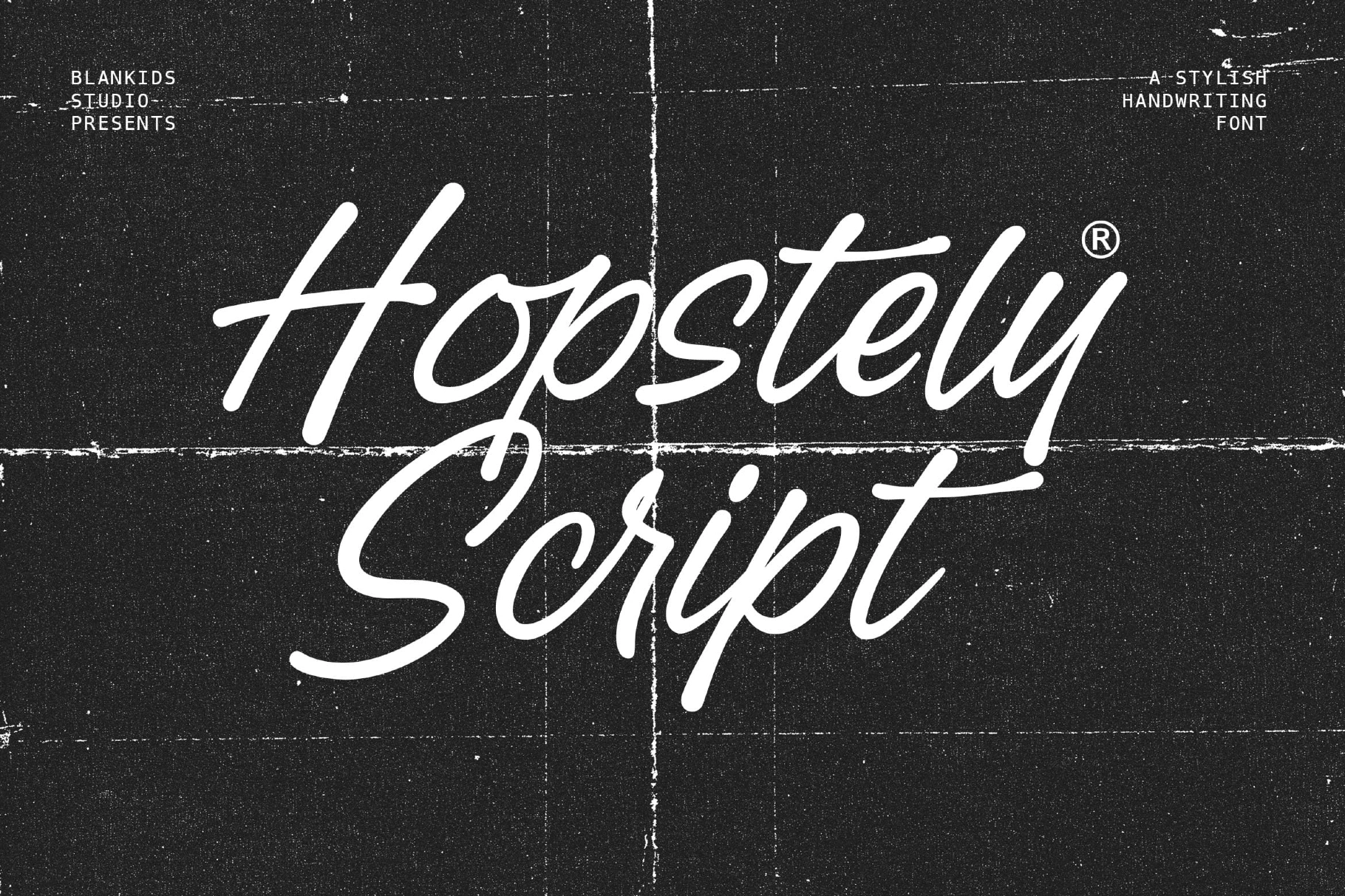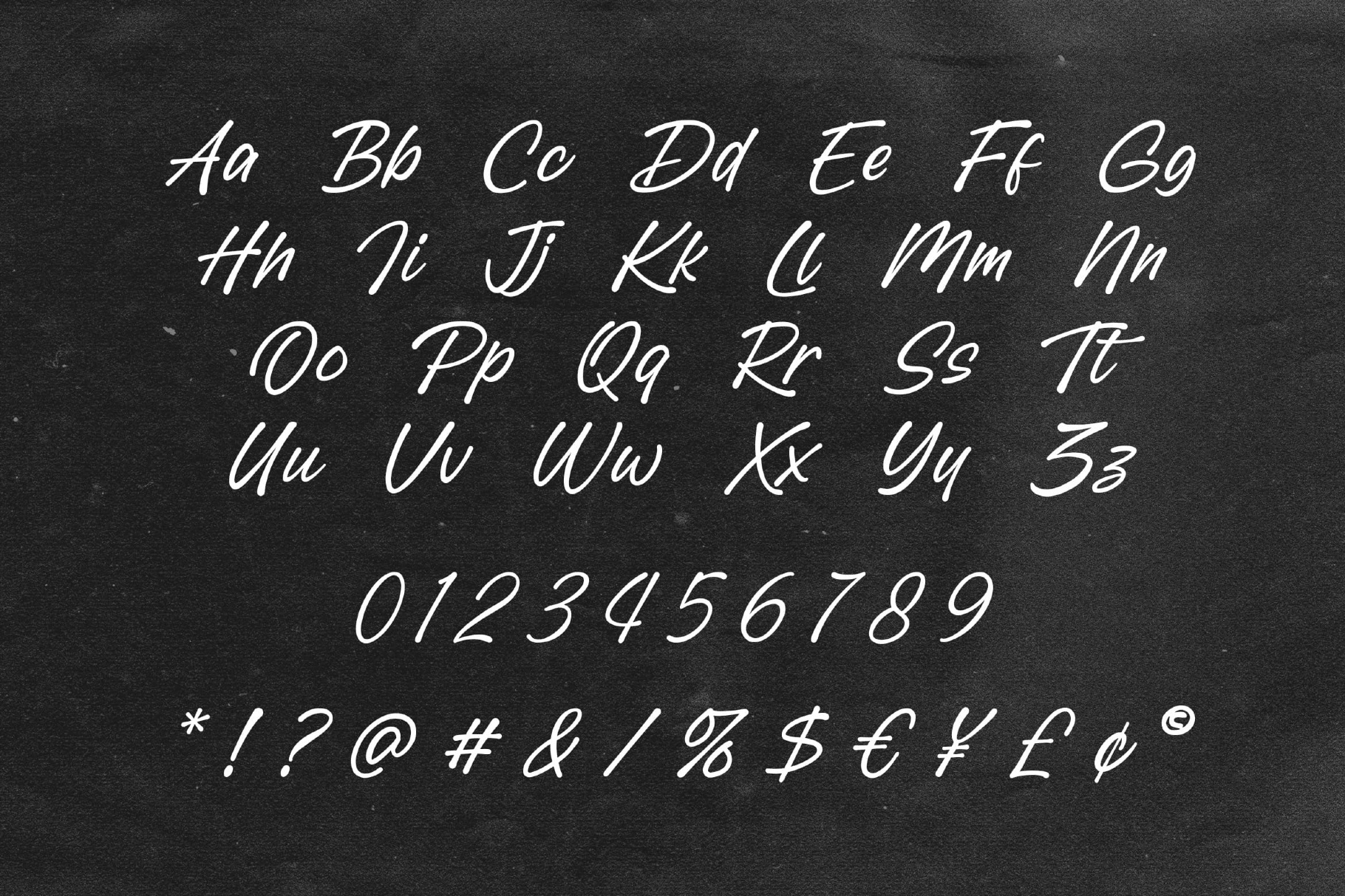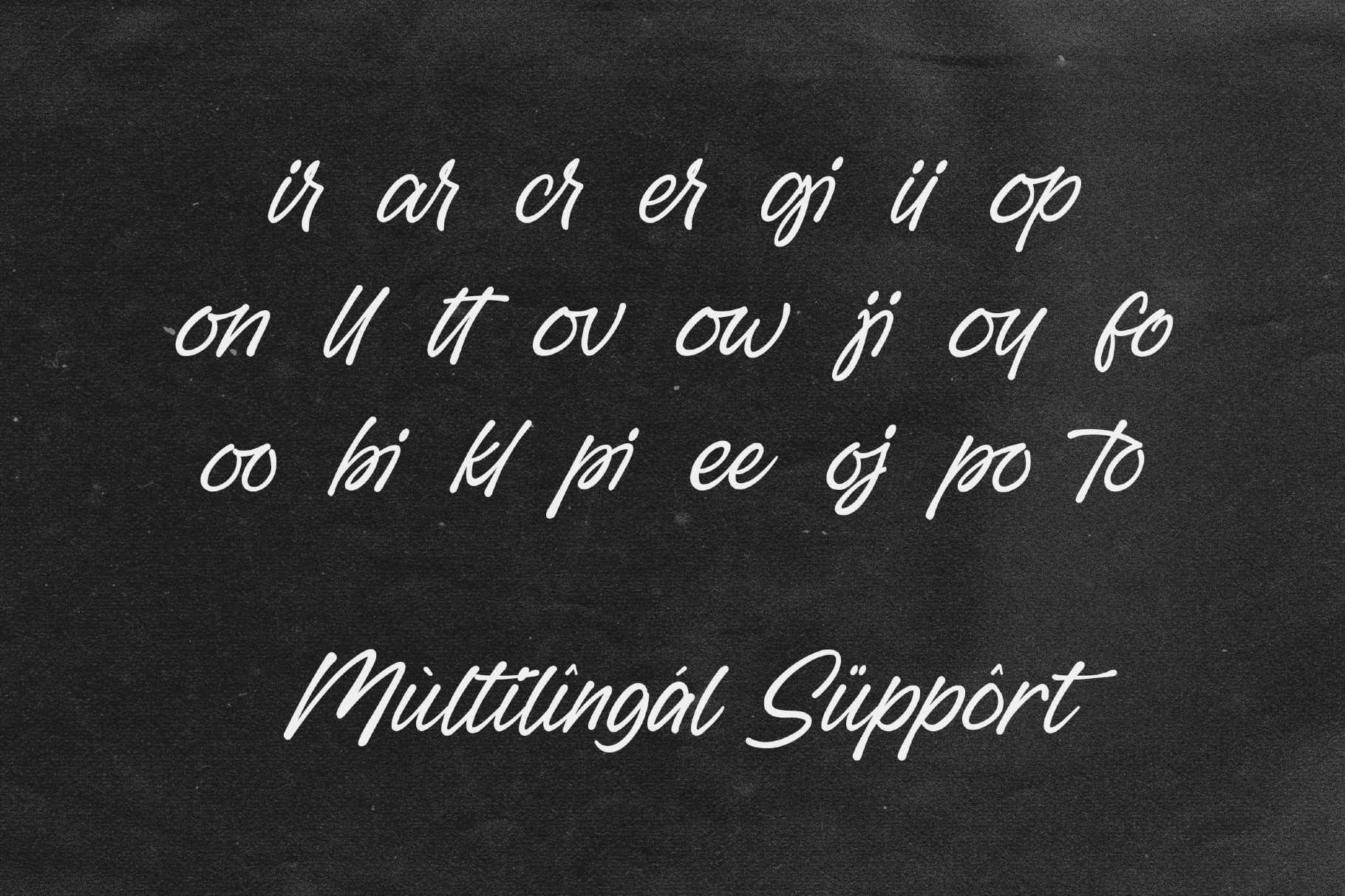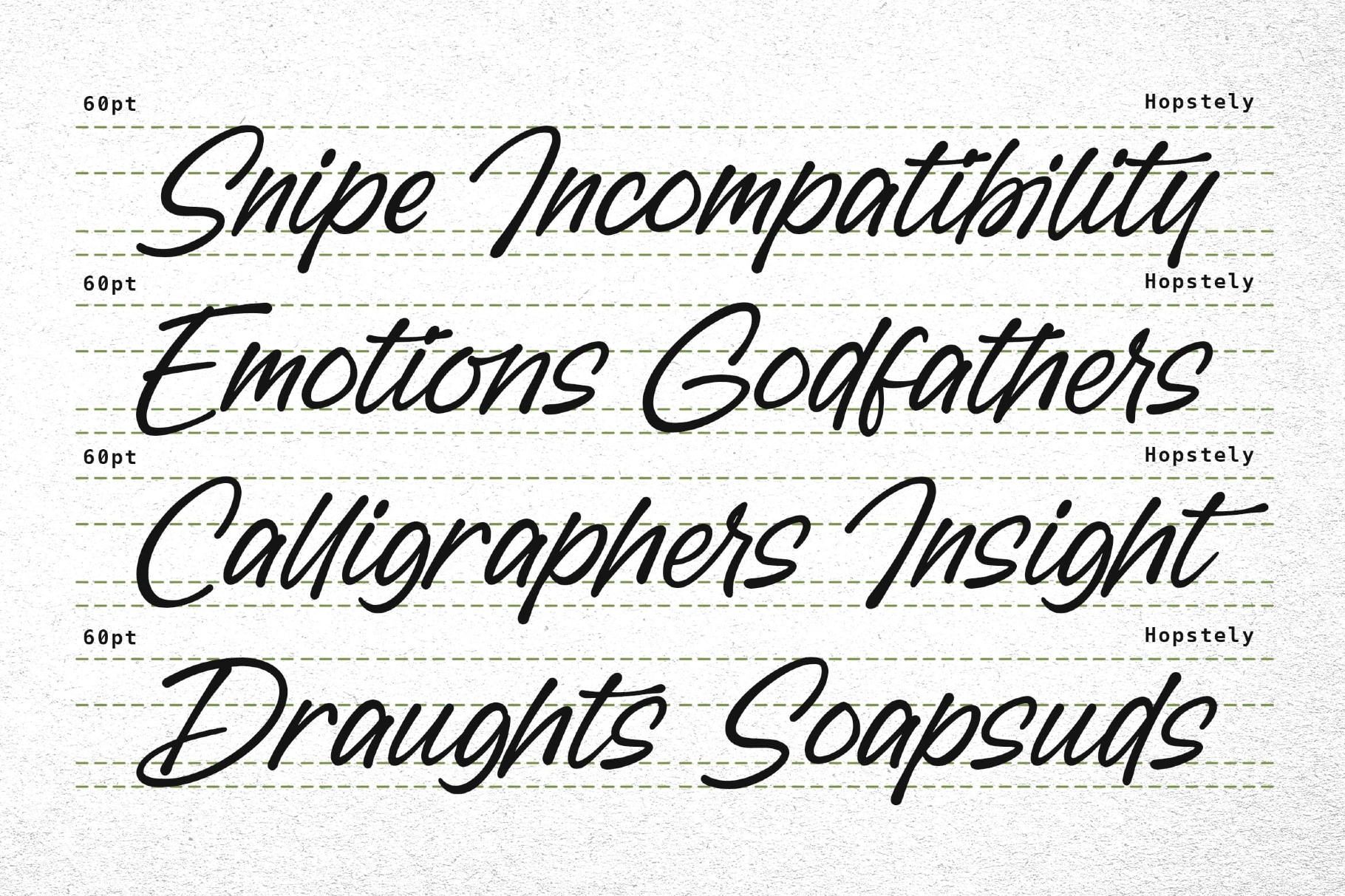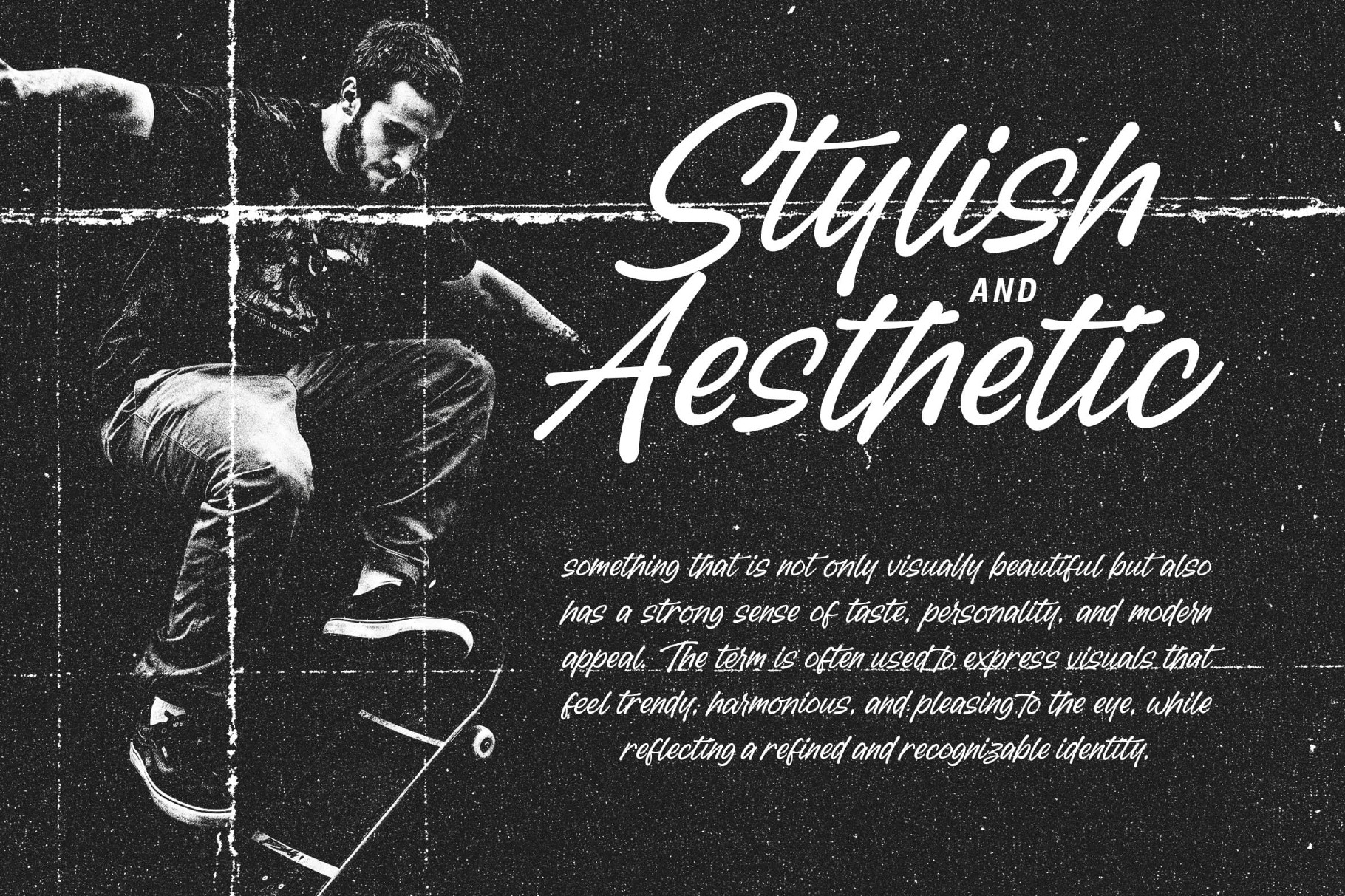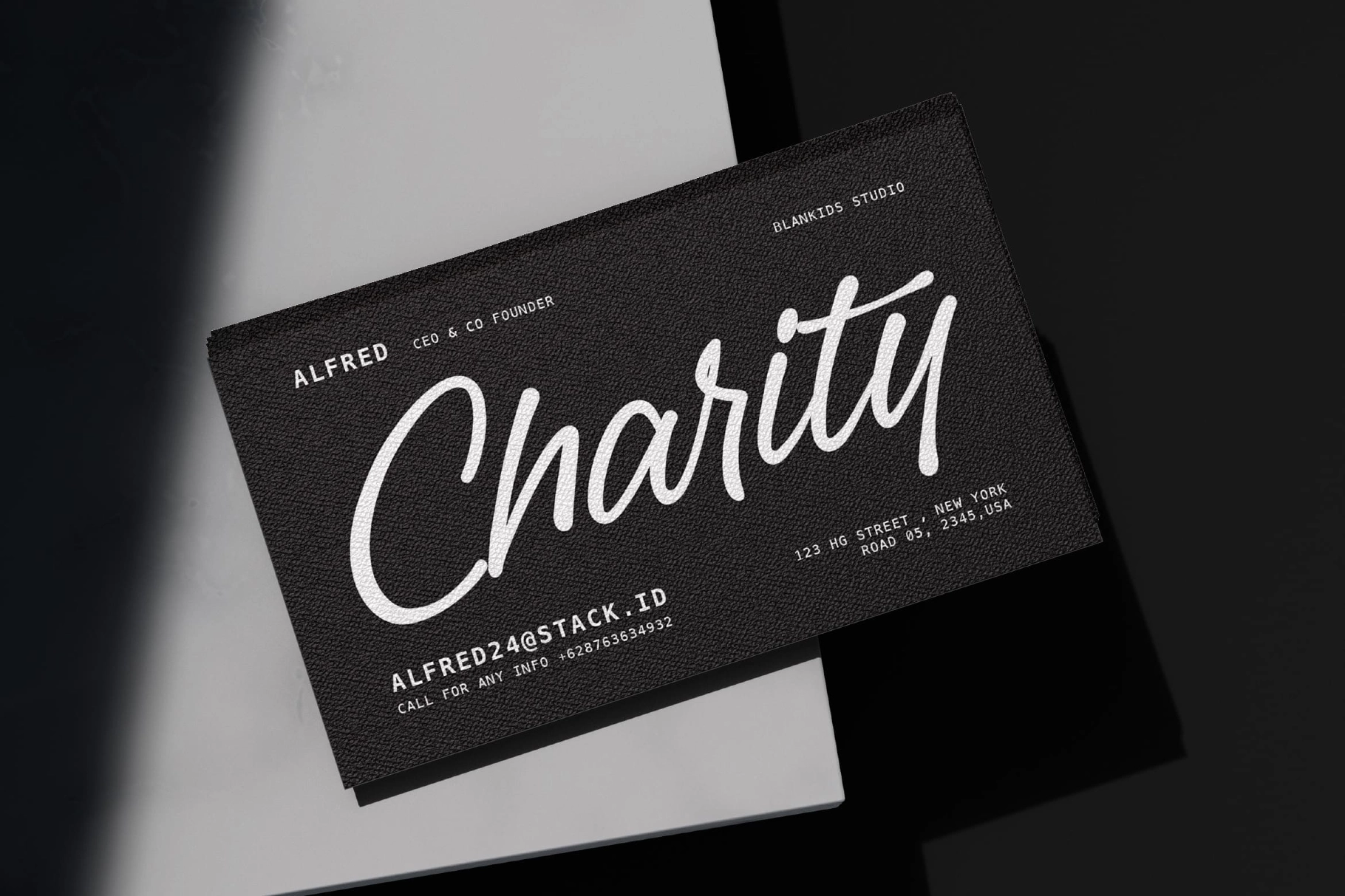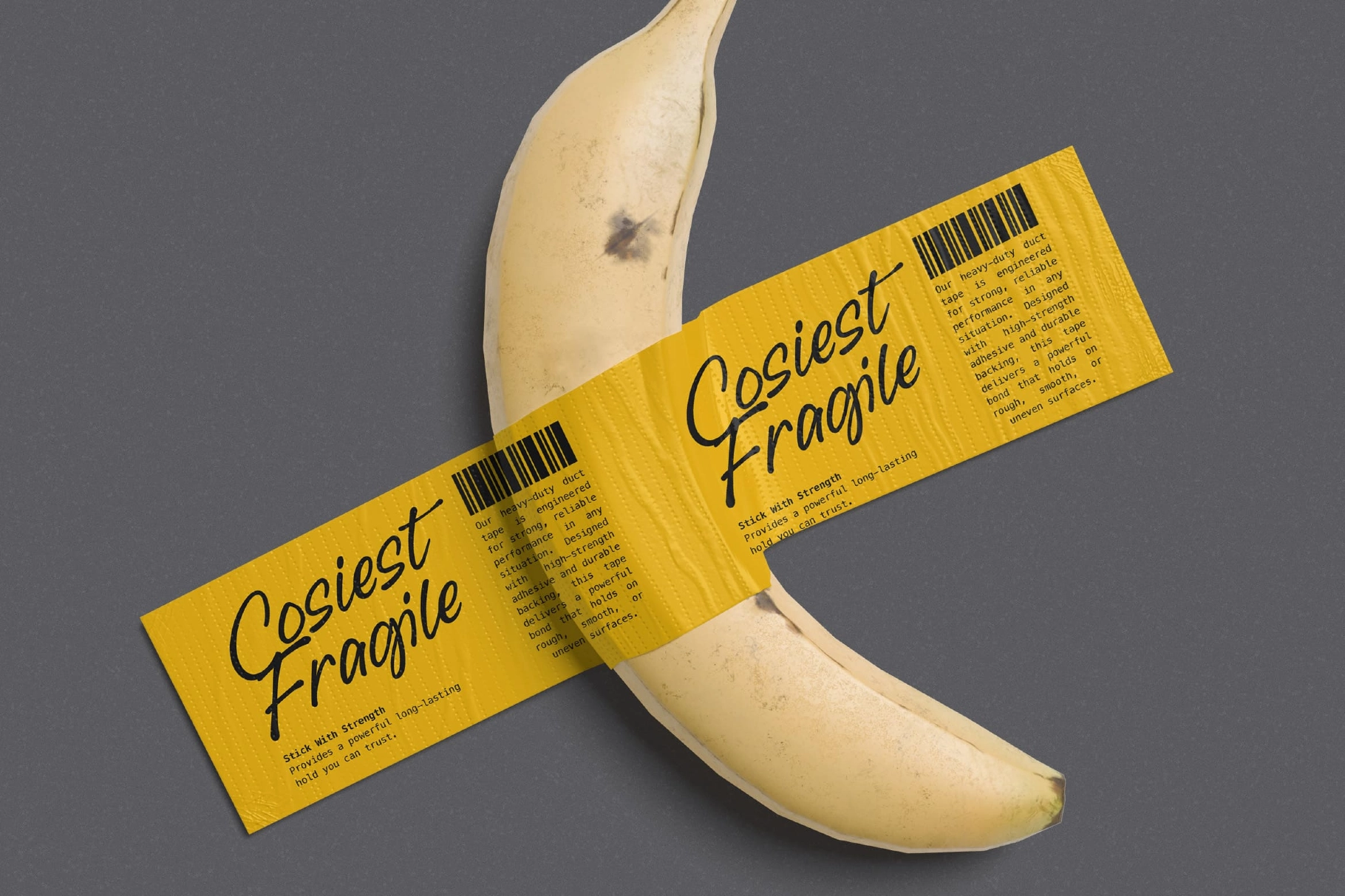
Hopstely Script – Handwritten Script Font
Hopstely
This handwritten script font has a fast, expressive rhythm with long entry strokes, smooth lowercase connections, and a confident marker-like finish. Its slanted forms are clean enough for branding work, while the casual pen movement keeps it personal and lively.
Hopstely works well for logos, packaging, café menus, apparel graphics, album covers, editorial headlines, social media quotes, greeting cards, wedding stationery, product labels, posters, and more. The character set includes uppercase and lowercase letters, numerals, punctuation, symbols, ligatures, and multilingual support for flexible print and digital use.